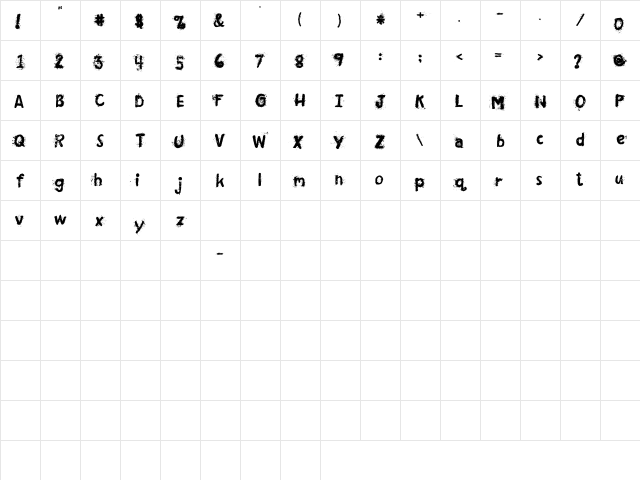
2Peas Old Blue Jeans 2Peas Old Blue Jeans Free Font
2Peas Old Blue Jeans 2Peas Old Blue Jeans
Style: 2Peas Old Blue Jeans
Design Context for 2Peas Old Blue Jeans
2Peas Old Blue Jeans is a composed and adaptable typeface that performs quietly and consistently across a wide range of design contexts.
Pro Tip: Use 2Peas Old Blue Jeans in both headline and body roles to test its range before committing to a single application.